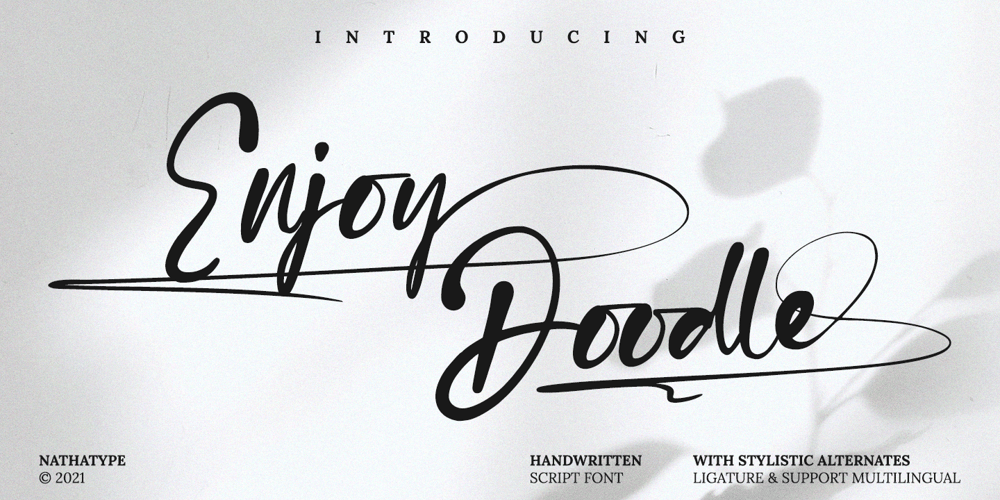
Enjoy Doodle Font Family was designed by Donis Miftahudin and published by Nathatype. Enjoy Doodle contains 1 styles and family package options. Looking for a font that’ll make your branding radiate elegance? A versatile, modern, and happy font? Then we’ve got just the font for you! Enjoy Doodle-Handwritten FontEnjoy Doodle is a modern hand-crafted font that’ll make your audience swoon and enhance your branding projects, printed materials, and website design. Every stroke and curve was created to portray the essence of elegance and style. Go ahead and use it on your headings, promote your online sales, Instagram quotes, and even printed materials like business cards, t-shirts, or invitations. Features: Stylistic Set Ligatures Swashes PUA Encoded Numerals and Punctuation Thank you for downloading premium fonts from Nathatype